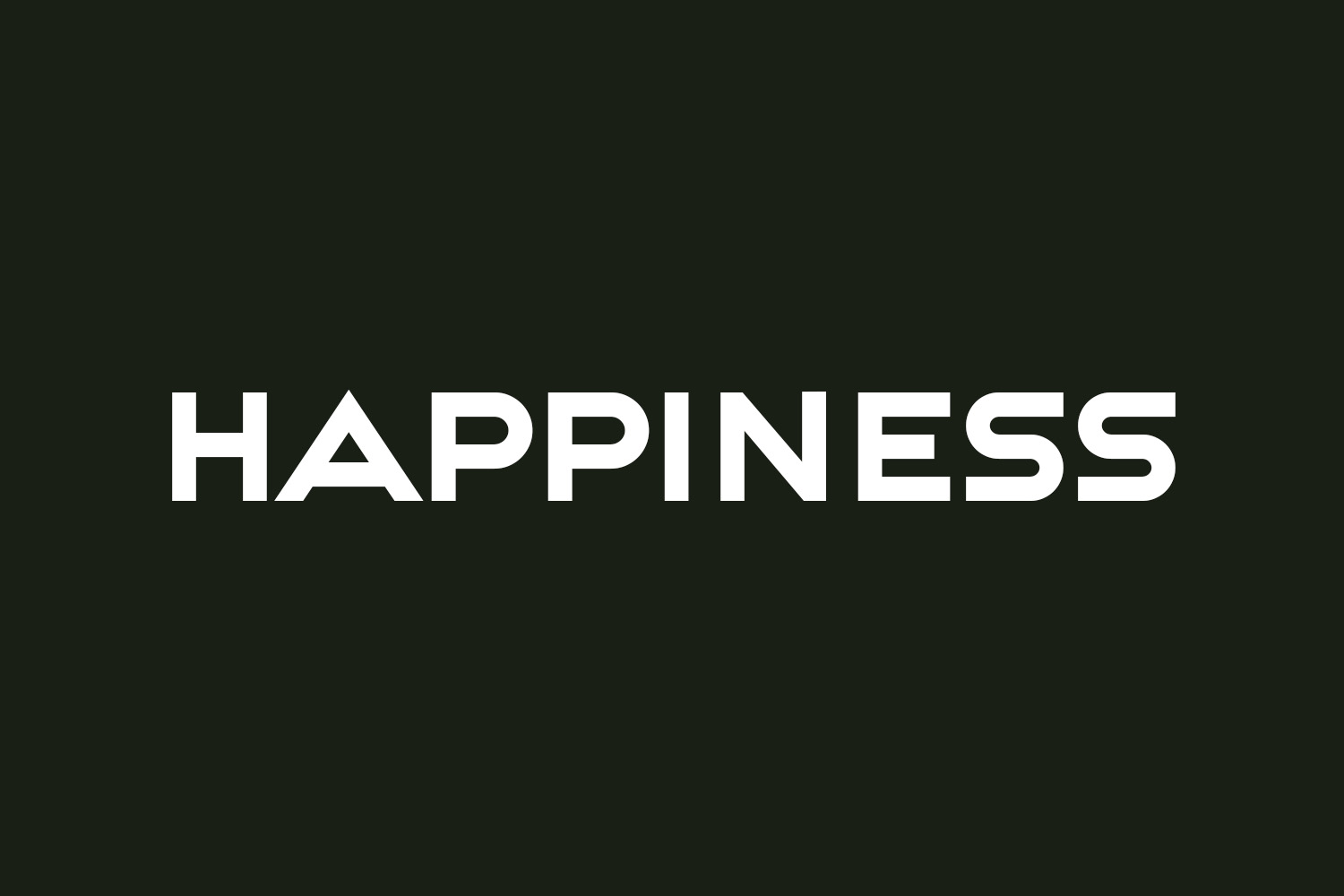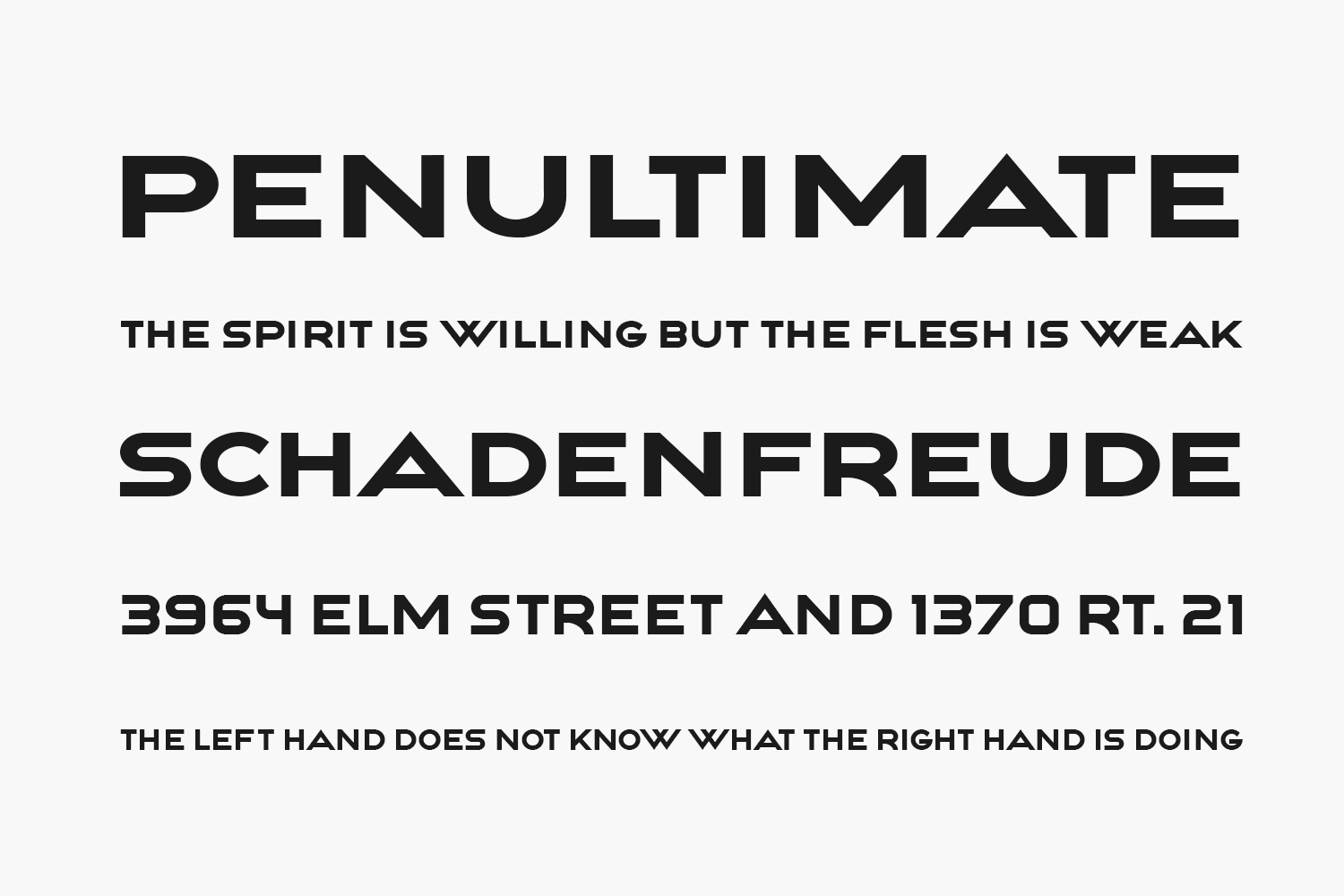
Happiness Free Font is in extravagant Sans Serif font with great visibility. Use this font on banners, shirts, and much more. Happiness Free Font was designed by Vladimir Nikolic and is free for personal use only. Please purchase the full version for commercial use.
Designed by Vladimir Nikolic